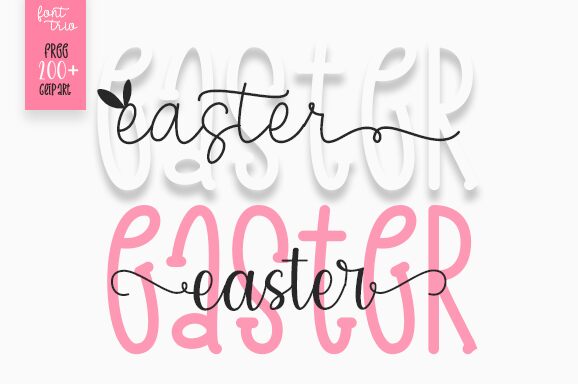
Easter Monoline
Easter Monoline is a beautifully crafted calligraphy font designed by Fillo Graphic. Its extra-light weight and graceful curves make it perfect for elegant and whimsical projects, such as wedding invitations, greeting cards, and branding materials for feminine brands. The monoline style adds a touch of simplicity to the intricate calligraphic details, making it easy to read and versatile for various design applications. Whether you're looking to create something romantic or playful, Easter Monoline will add a charming touch to any project.